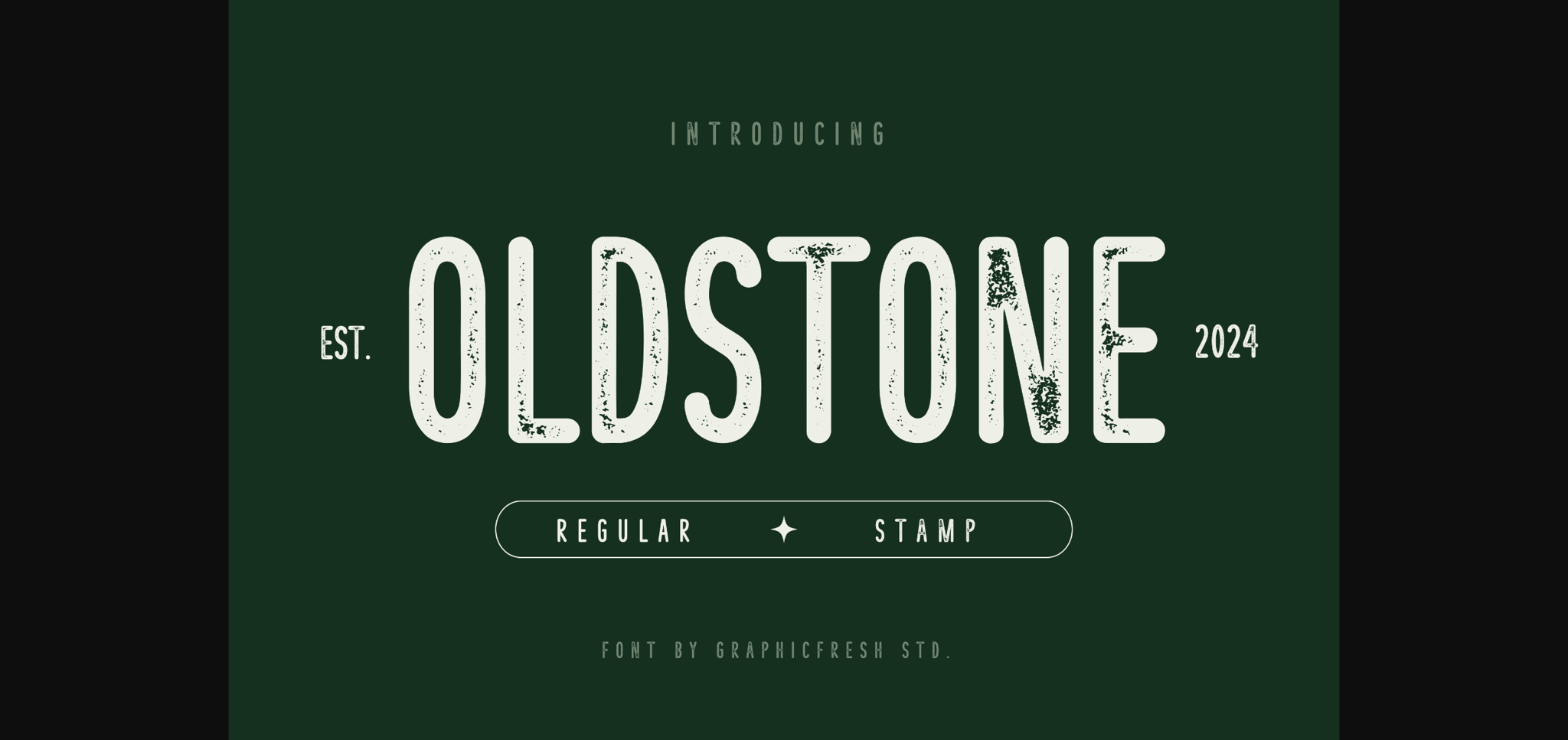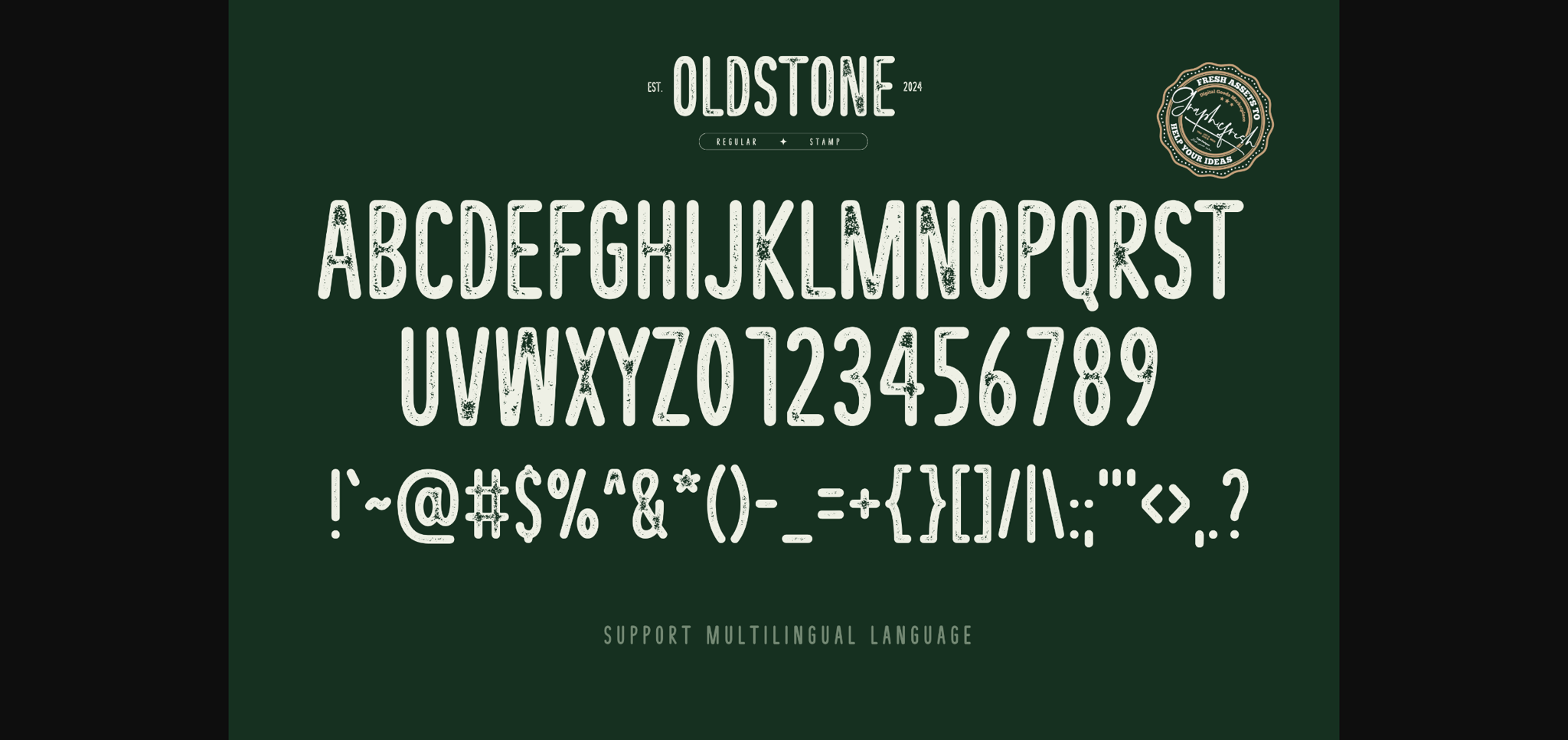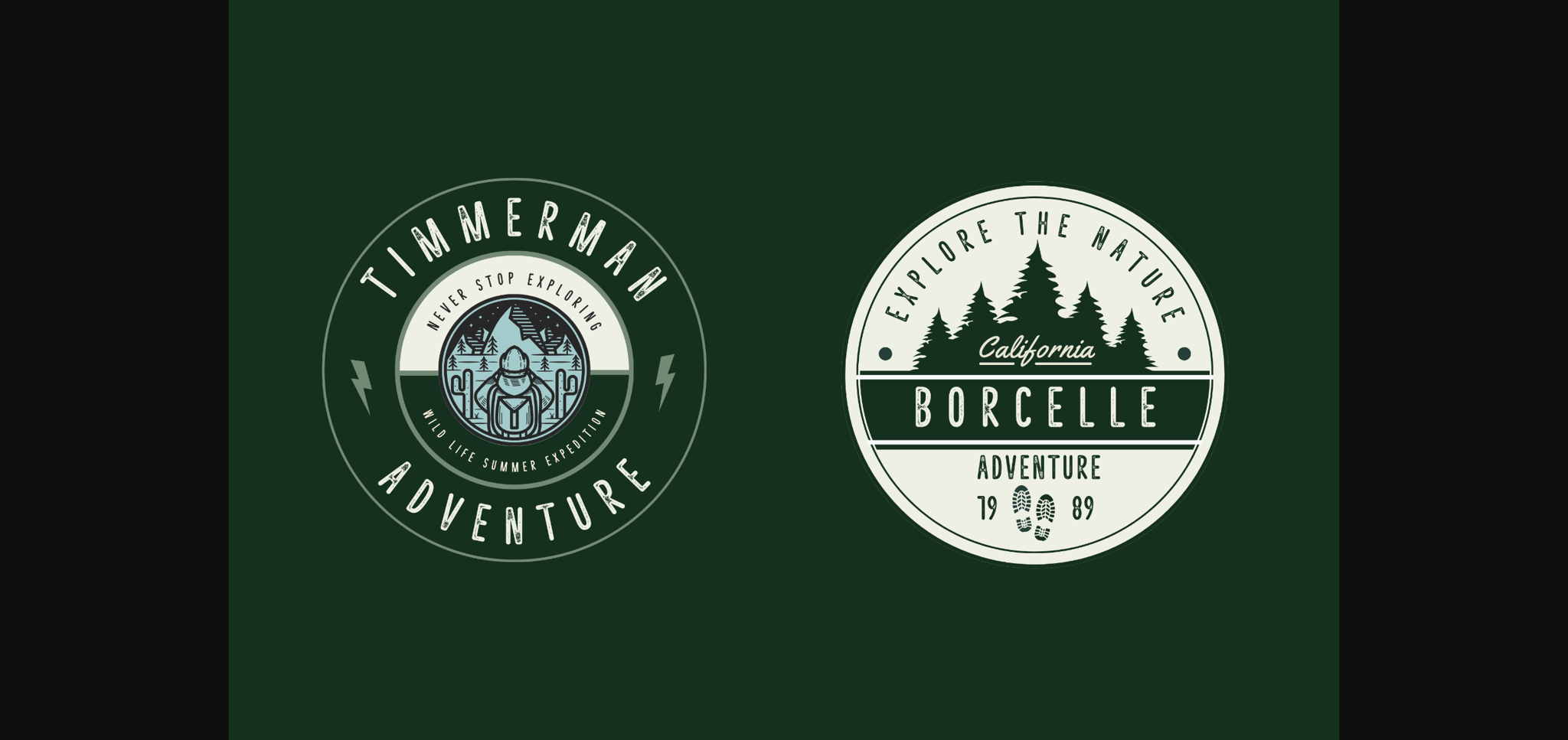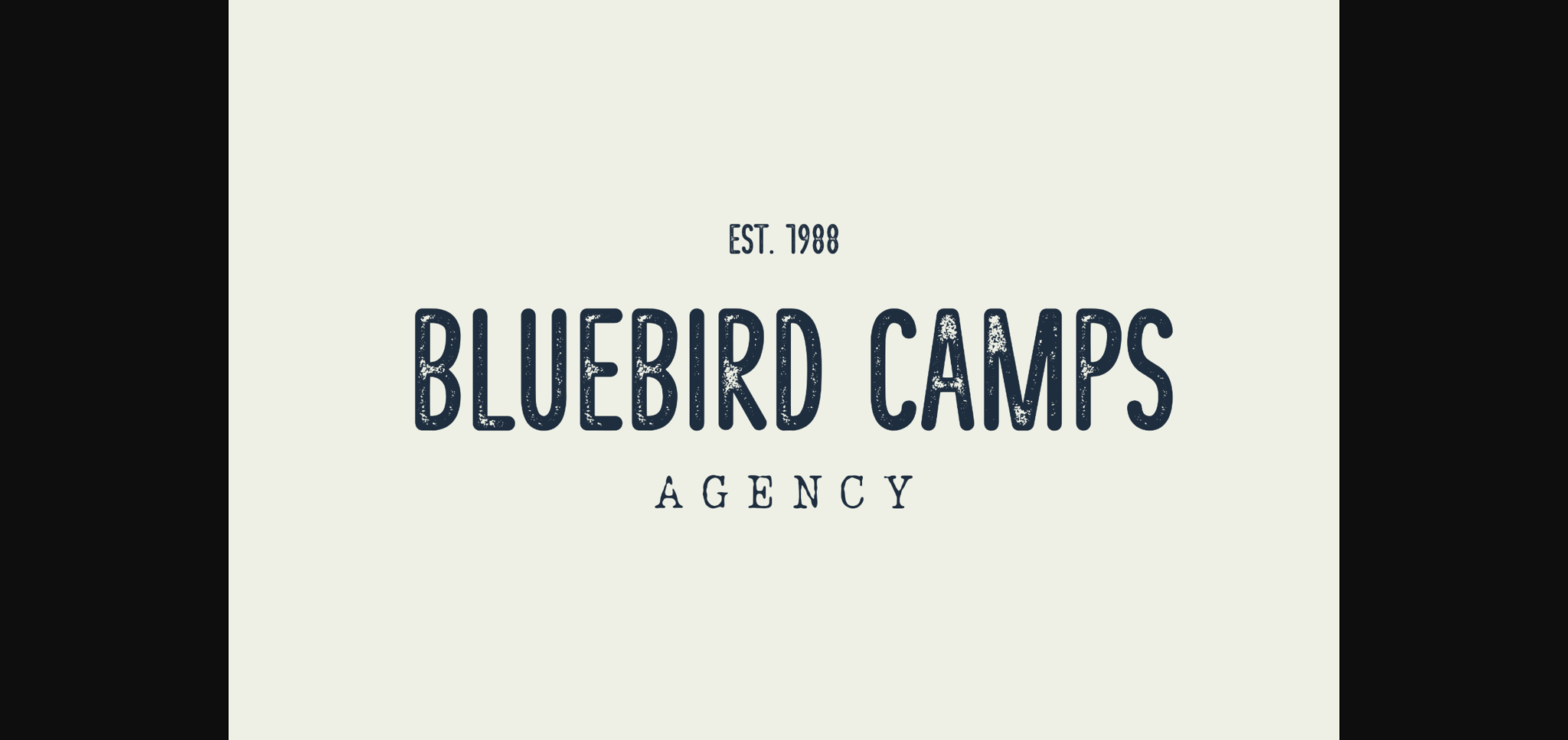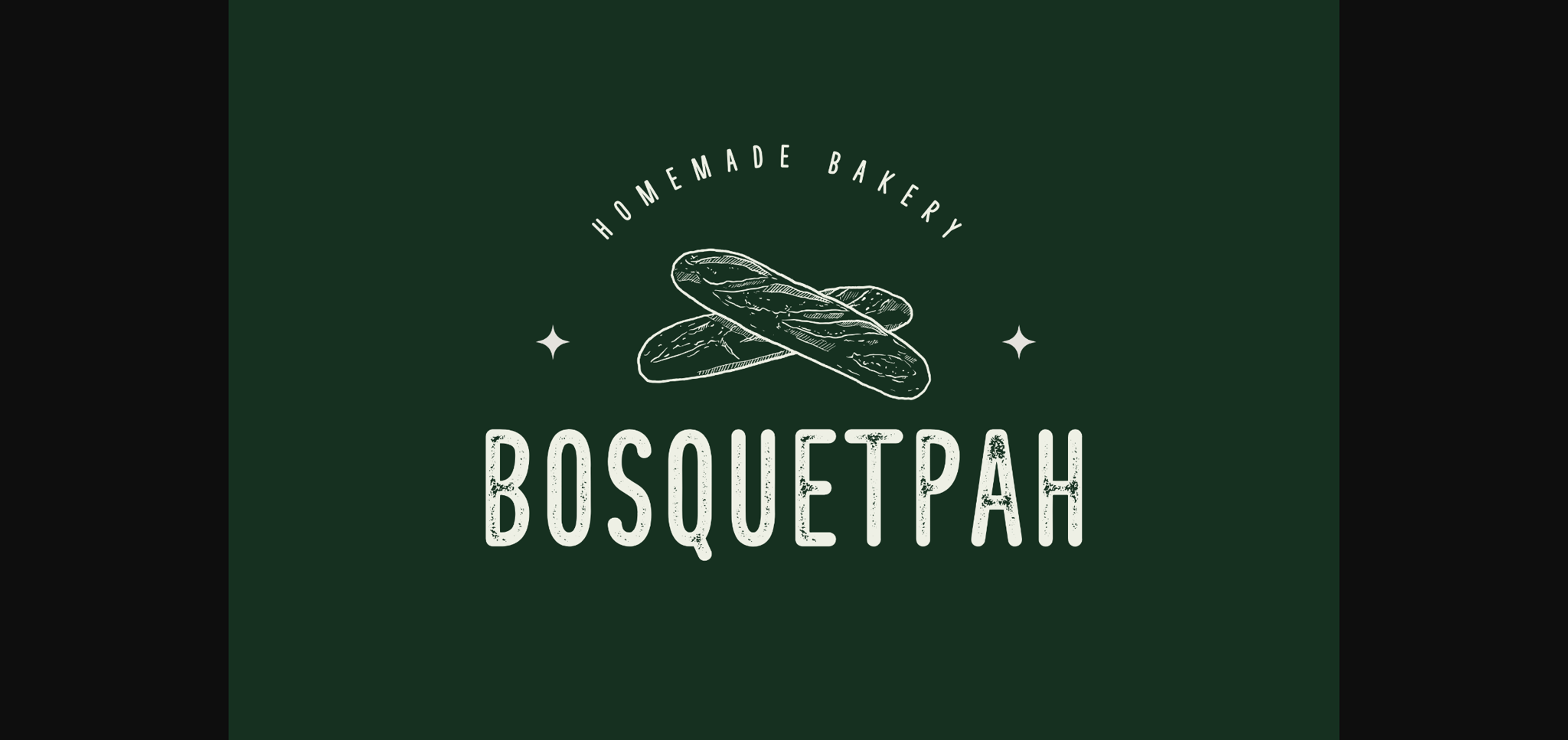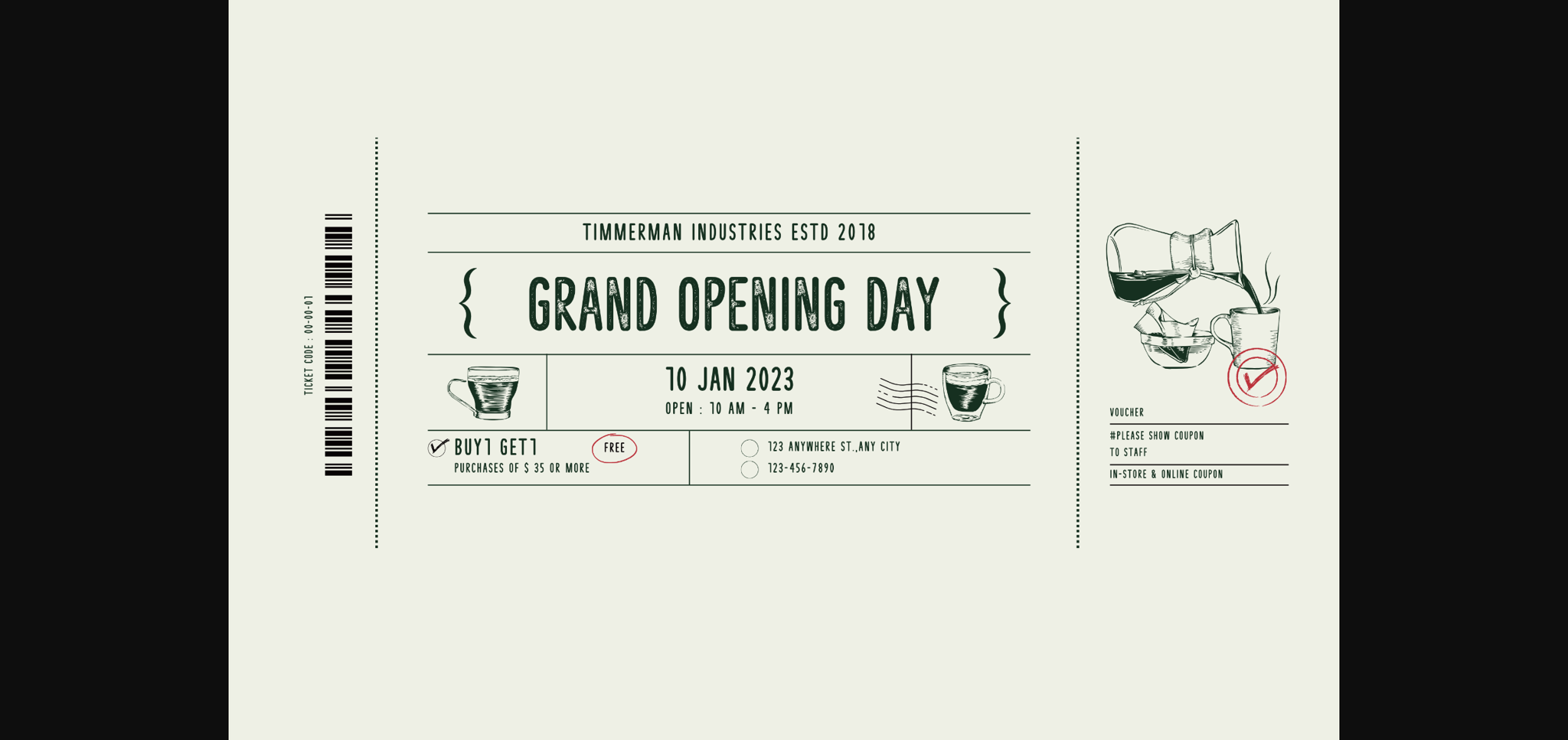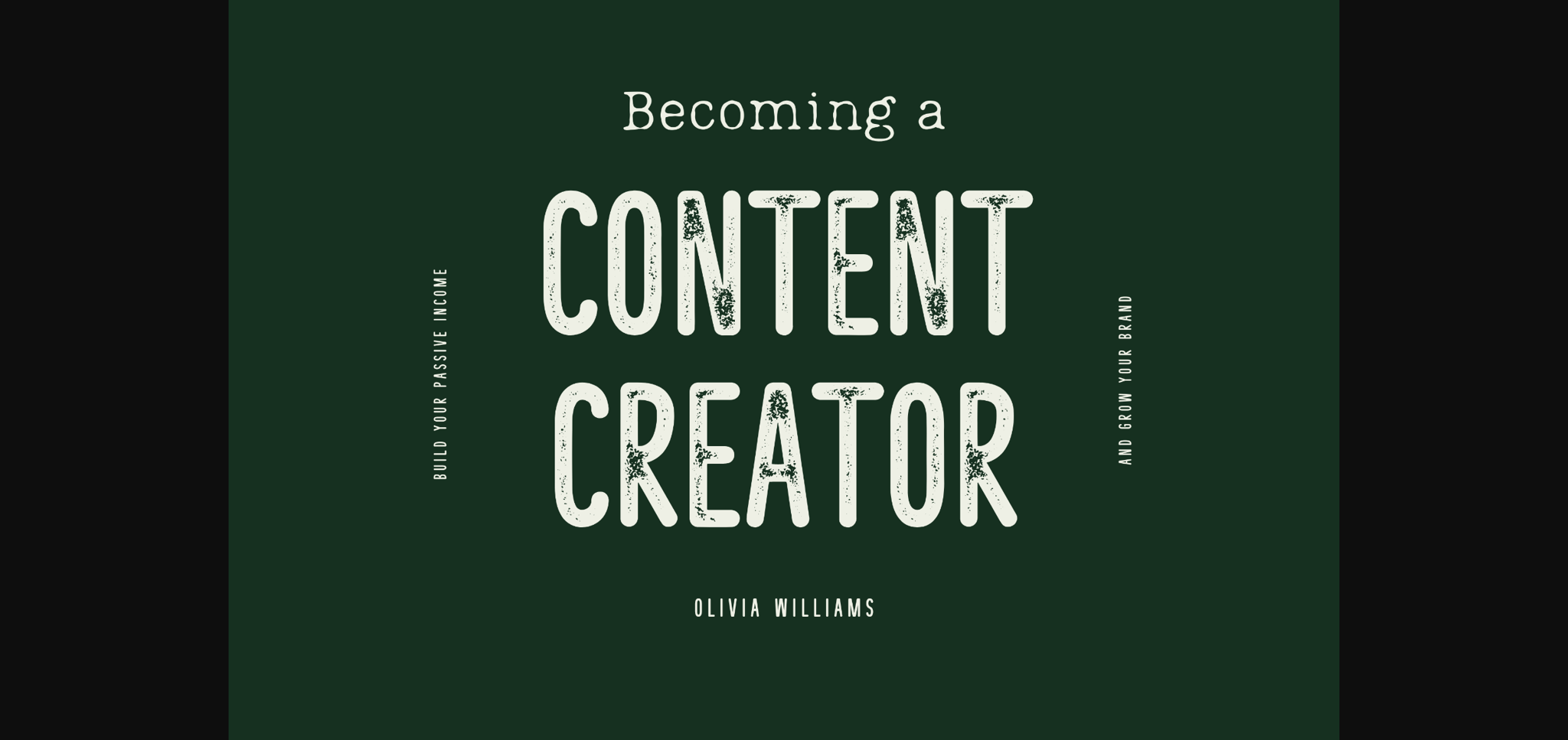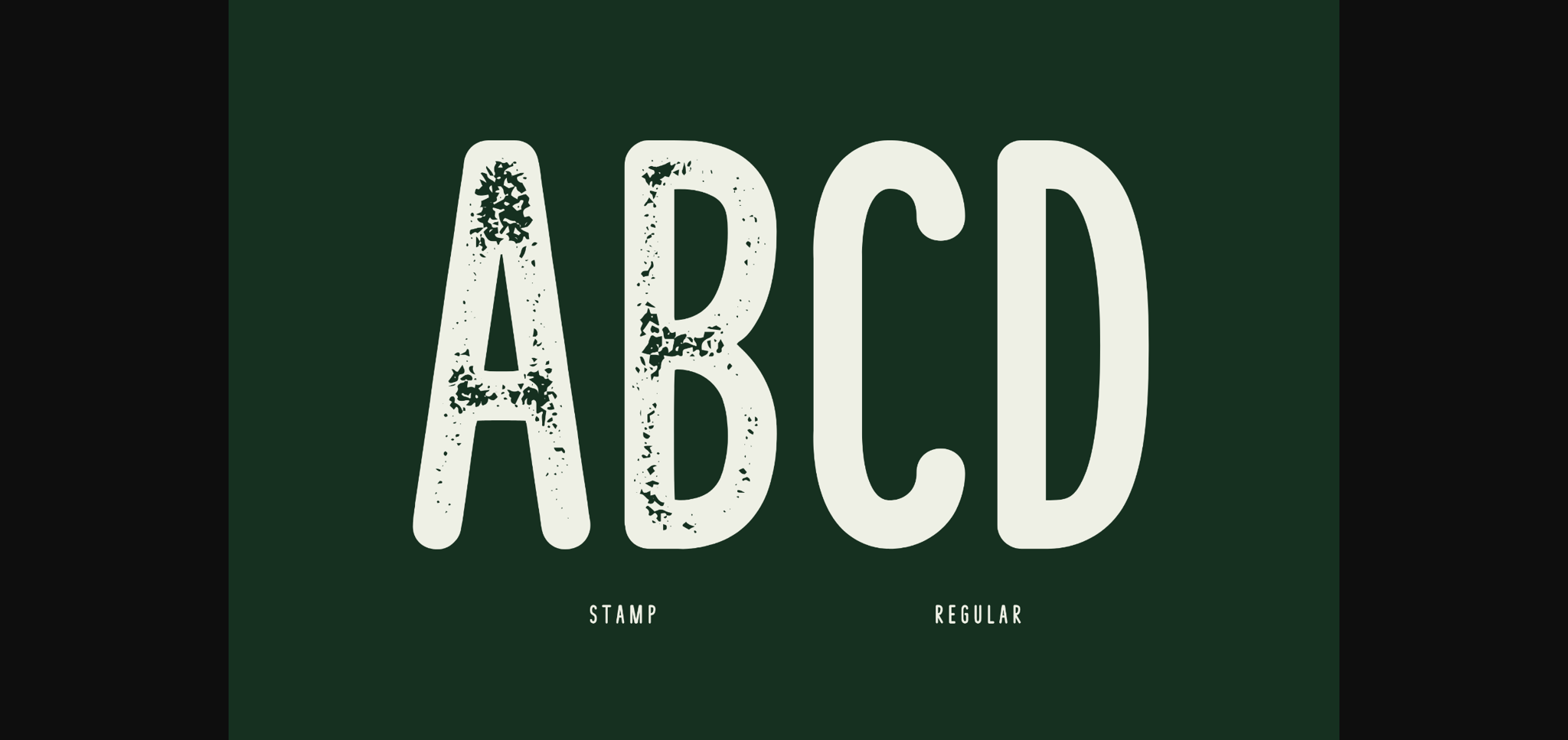
Oldstone Font
About Oldstone Font
Oldstone combines the simplicity of sans serif with a playful rounded style, offering a fresh take on vintage and letterpress designs. This font is ideal for projects that require a touch of warmth and friendliness without losing the classic and professional appeal of sans serif. Perfect for branding, packaging, and digital design, it provides readability and a charming aesthetic. Its unique blend of vintage charm and modern clarity makes it a versatile choice for a variety of design needs.